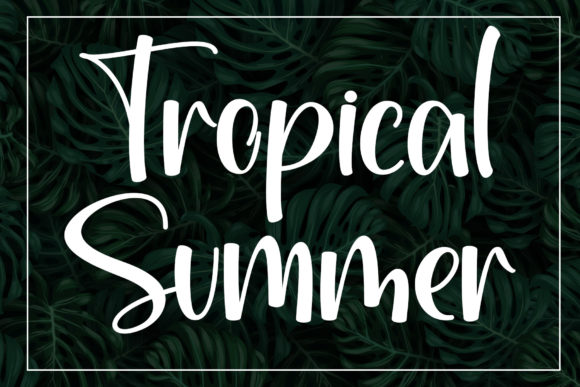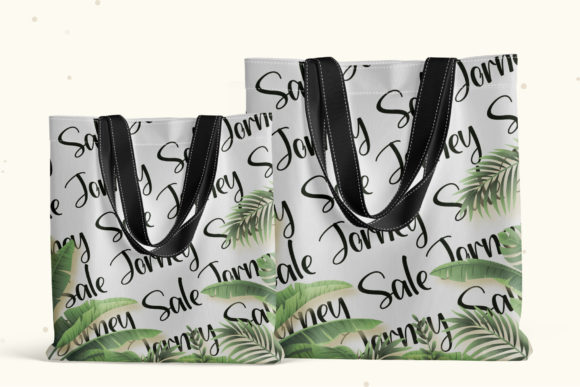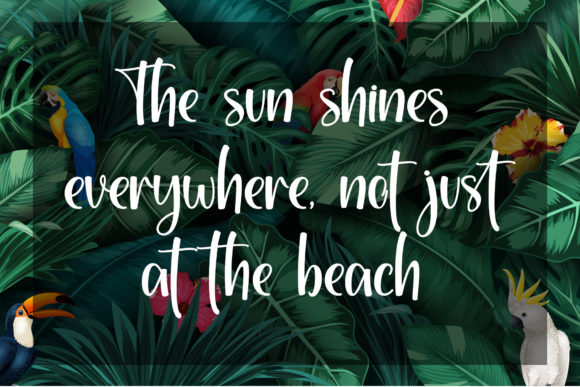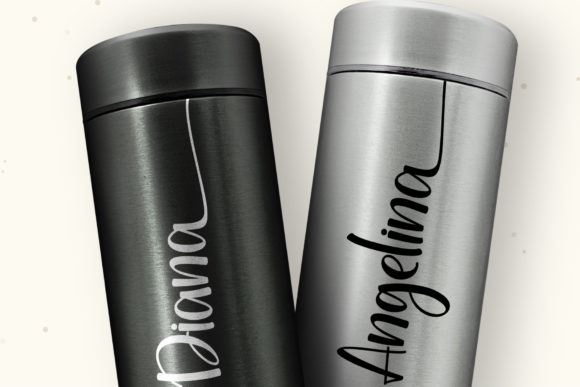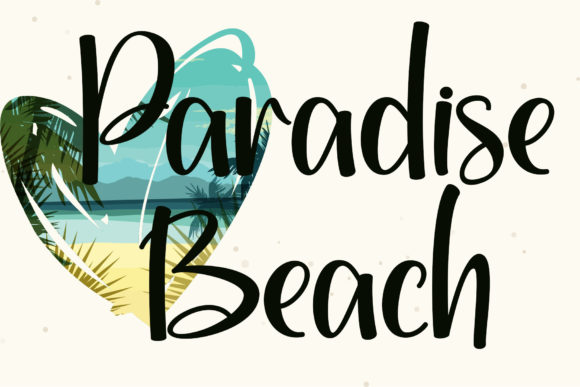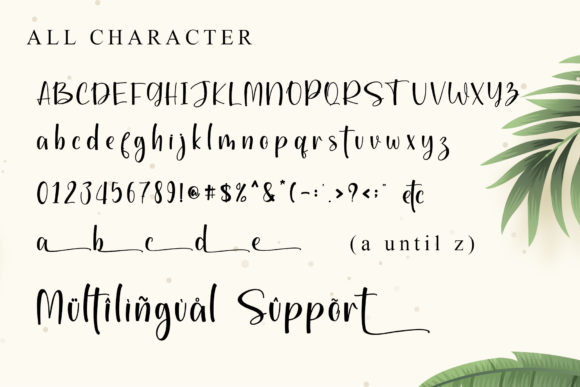
Dreamy Summer Font: Elevate Your Designs with Elegance and Refreshment
As the seasons change and summer arrives, designers and crafters are on the lookout for fresh and inspiring typography to infuse their projects with a sense of warmth and vitality. If you’re seeking a font that embodies the carefree spirit of summer while adding a touch of sophistication to your designs, look no further than the Dreamy Summer Font. This beautifully crafted handwritten font is designed to bring a stylish and elegant feel to your creative endeavors, making it perfect for a wide range of applications.
What is Dreamy Summer Font?
Dreamy Summer is a stylish and elegant handwritten font, meticulously created for those who crave a beautiful and refreshing aesthetic in their designs. Whether you’re working on a branding project, crafting invitations, or designing packaging, this font is sure to leave a lasting impression. Its unique, flowing script captures the essence of summer, bringing a sense of lightness and freedom to your work.
Key Features of Dreamy Summer Font
- Elegant Handwritten Style: The Dreamy Summer Font boasts a distinctive handwritten look that adds a personal and luxurious feel to any design.
- PUA Encoded: Being PUA (Private Use Area) encoded, this font allows easy access to all glyphs and swashes, providing flexibility and creativity in your typography.
- Versatile: Suitable for a variety of projects, from digital content to print materials, including but not limited to logos, branding, social media graphics, and more.
The Dreamy Summer Font offers numerous benefits for designers and crafters looking to elevate their projects:
- Unique Aesthetic: Stand out from the crowd with a font that offers a fresh and unique style, perfect for designers looking to offer something new to their clients.
- Time-Saving: With its comprehensive set of glyphs and swashes, designers can work more efficiently, saving time that would otherwise be spent on customizing and fine-tuning typography.
The Dreamy Summer Font is a beautiful addition to any designer’s toolkit, offering a stylish, elegant, and refreshing aesthetic perfect for capturing the essence of summer in your projects. Its ease of use, versatility, and unique features make it an excellent choice for a wide range of applications. Whether you’re a professional designer or a crafter, this font is sure to inspire and elevate your designs. So, why wait? Dive into the dreamy world of typography and let your creativity shine with the Dreamy Summer Font.